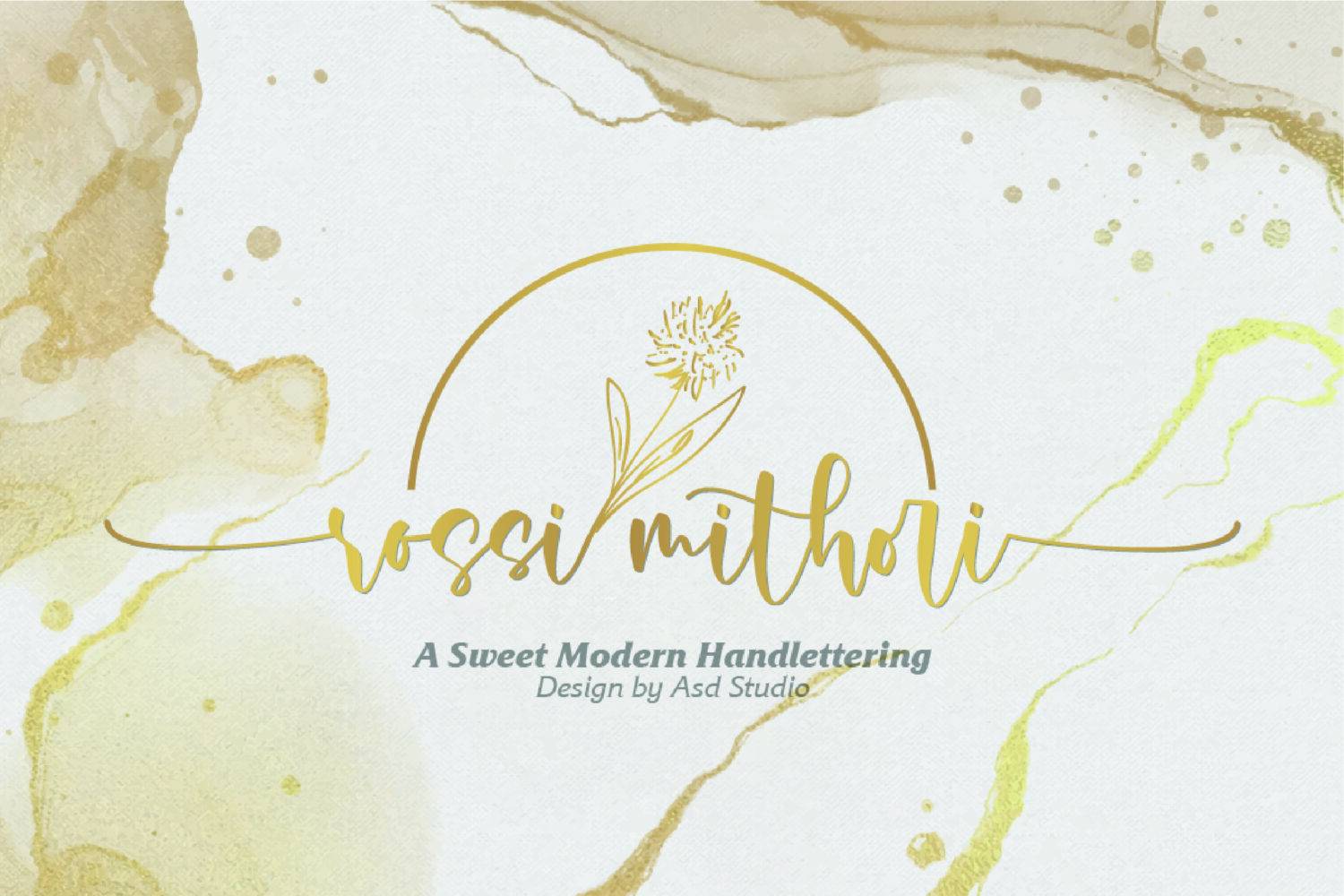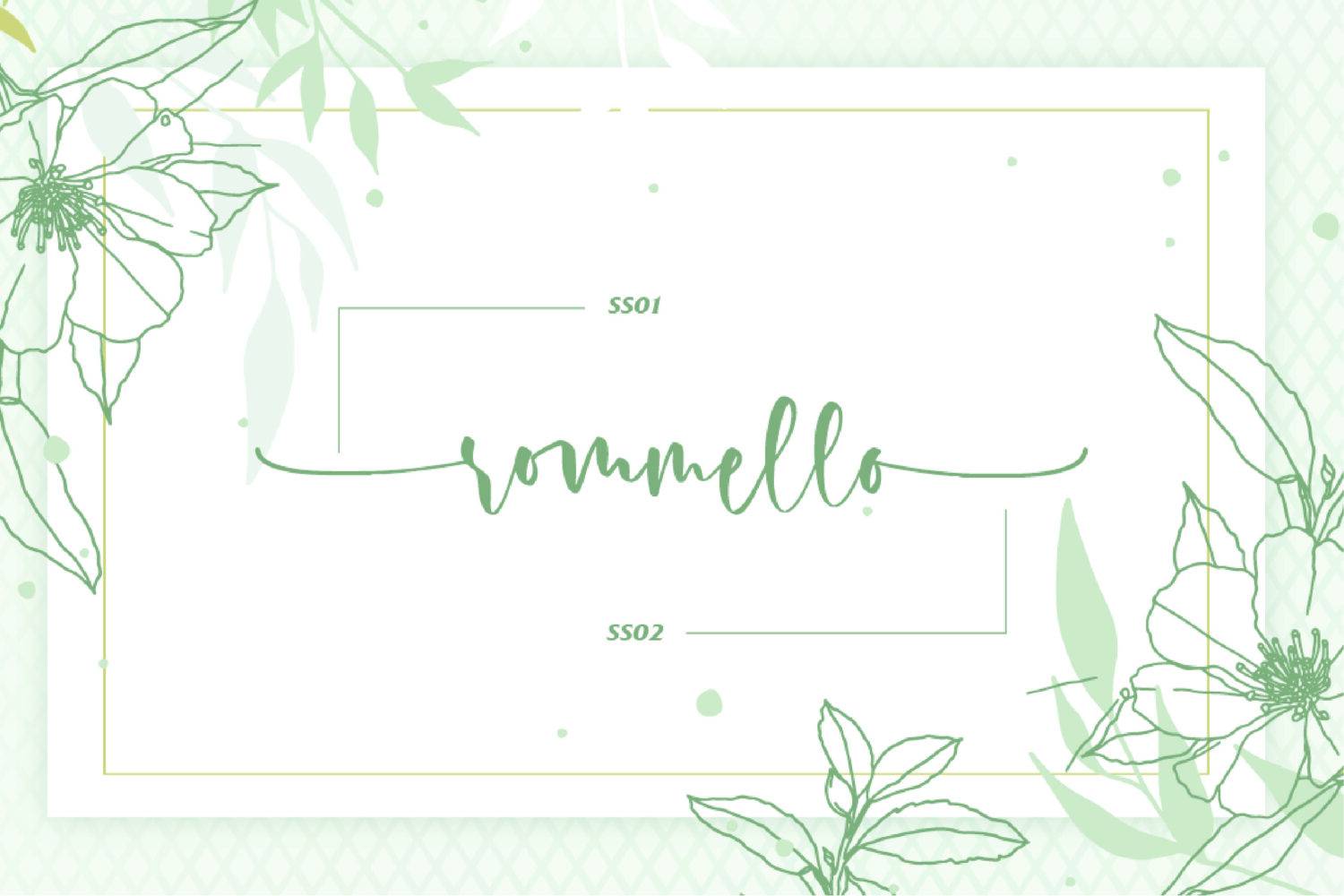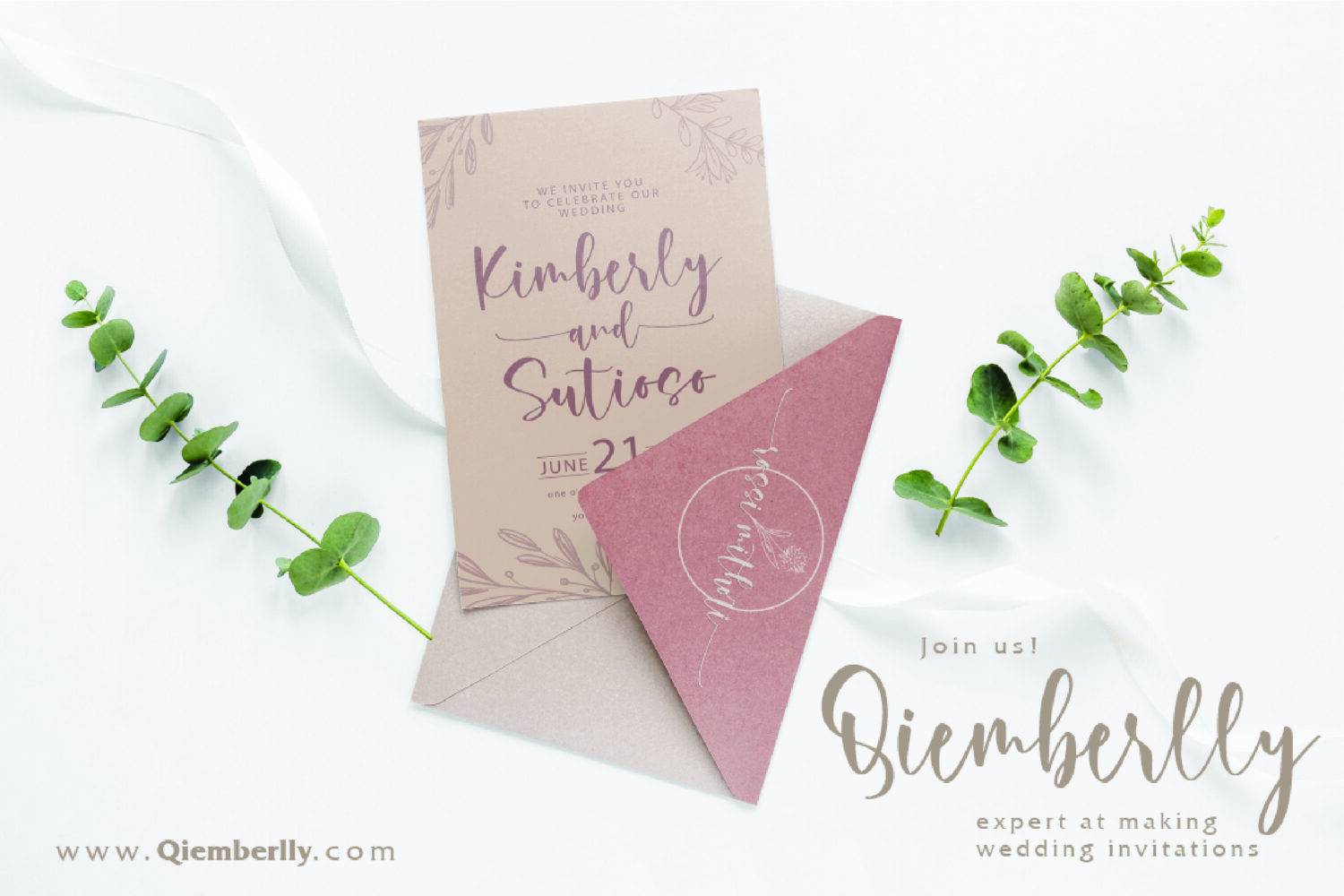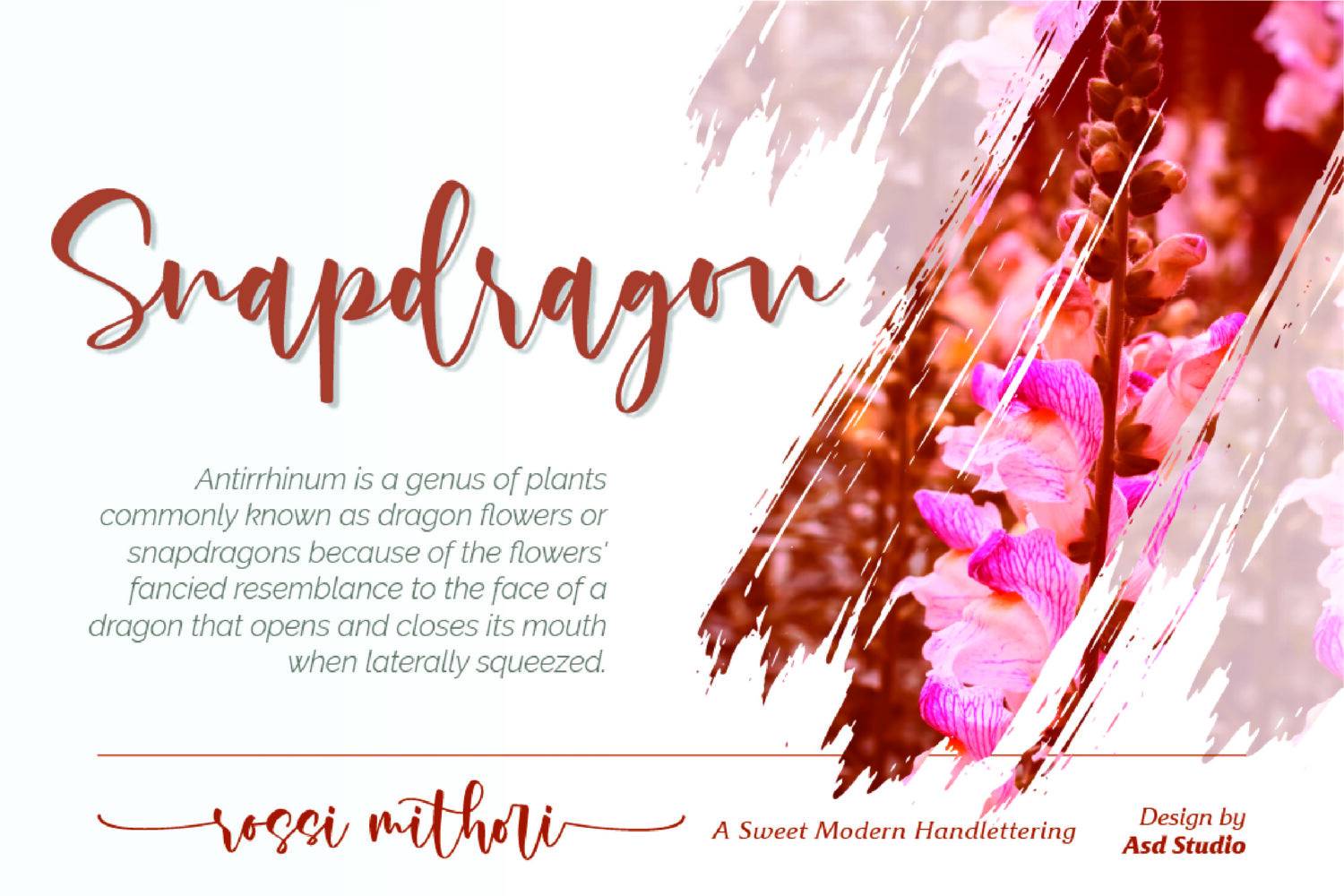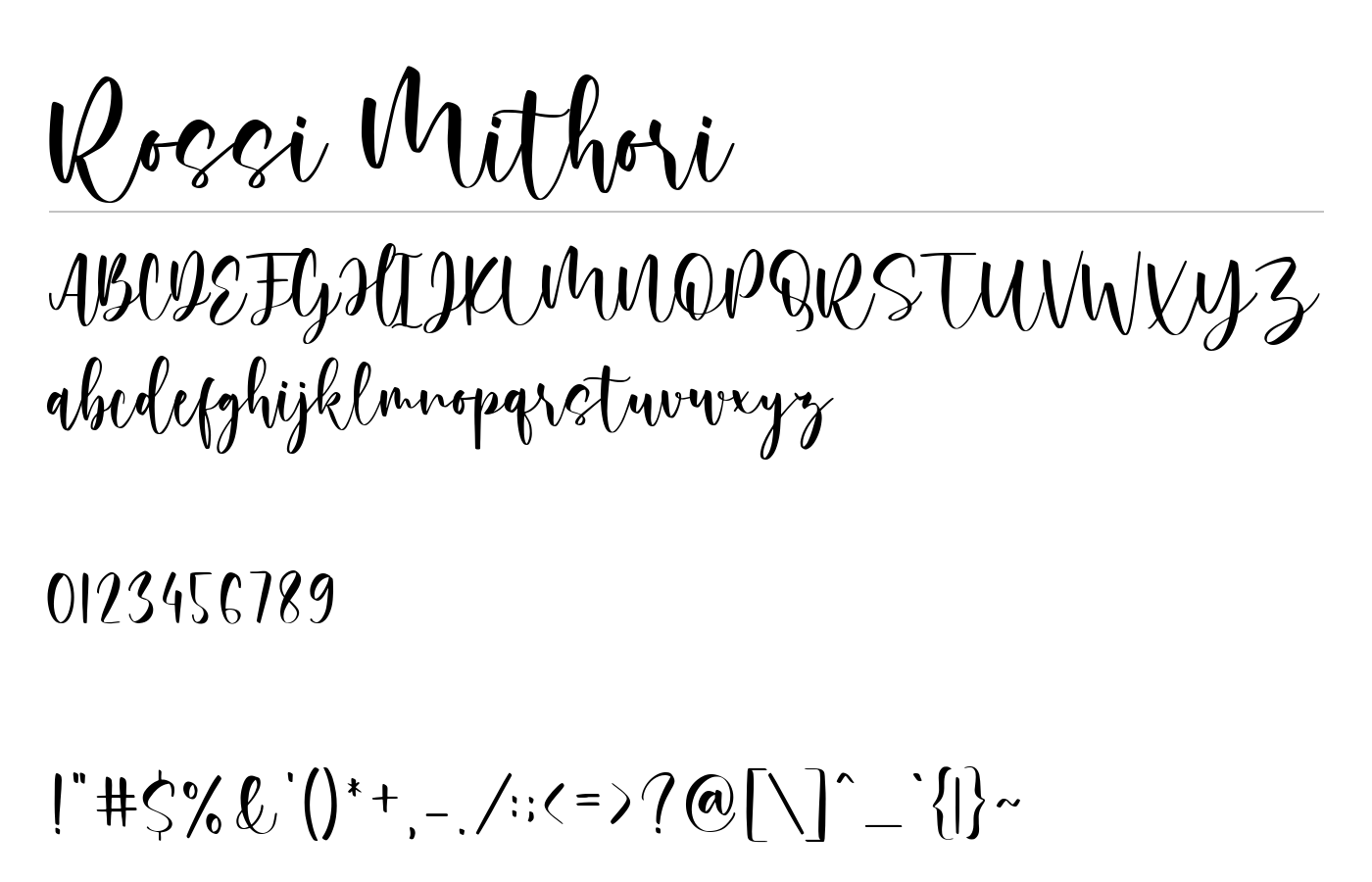
Rossi Mithori is a lively and elegant script font with a handwritten feel, characterized by smooth, flowing strokes and moderate contrast that gives it a natural, personal touch. Its slender, slightly condensed letterforms and playful curves make it perfect for creating inviting and stylish designs, ideal for branding, invitations, and creative projects that want to express warmth and sophistication. This font balances charm and readability, making it suitable for headlines and decorative text in both digital and print media.
Rossi Mithori Font
About Rossi Mithori Font
| Font family | Rossi Mithori Font |
| Designer | Ghazi Humam Fauzan |